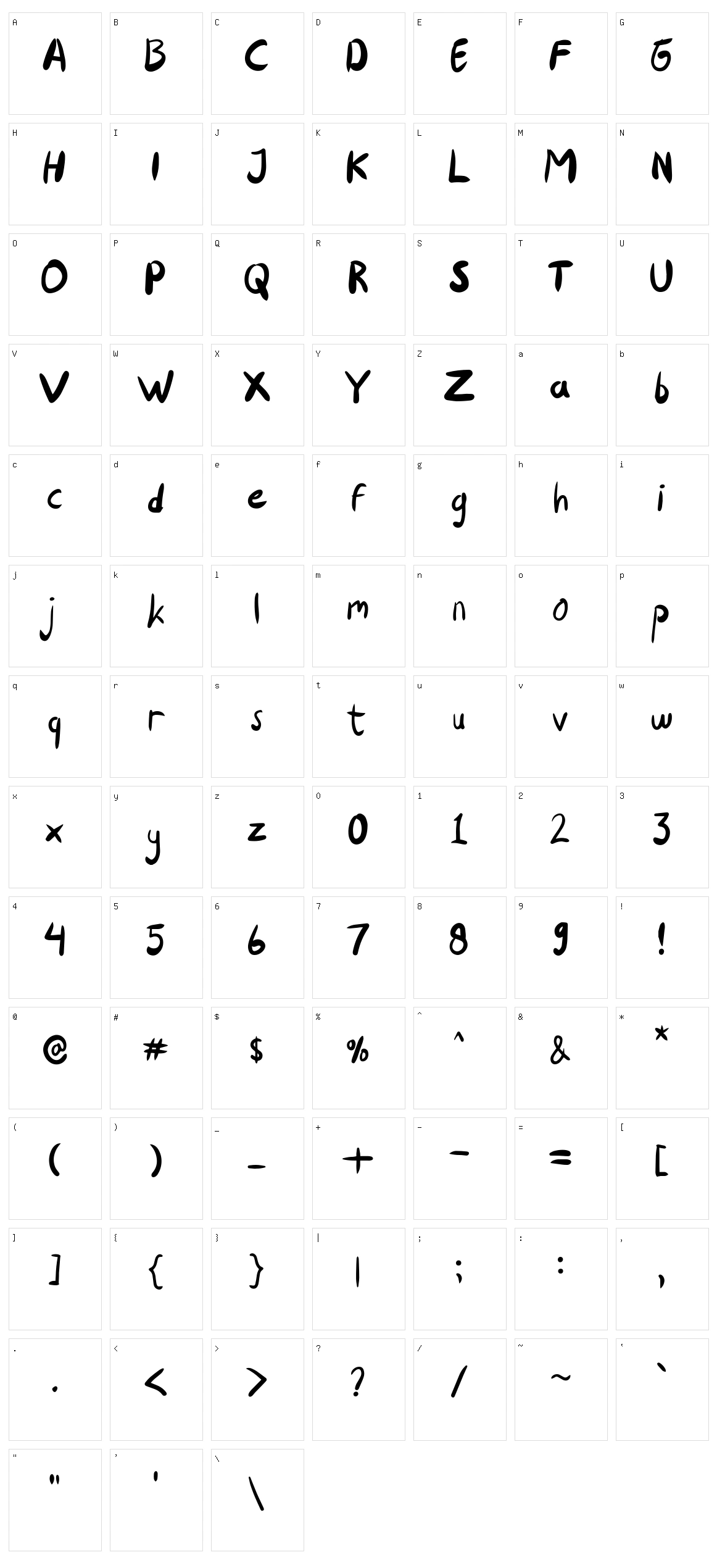
The free font Black Jack is carefully designed by Primitype, showcasing a thoughtful balance of creativity and usability and falls under the Script font style. When you download the ZIP file, it contains only 25.3 KB of font files, making it lightweight and quick to download. Please review the license details below to understand permitted usage and distribution rights. If license information is not available, we recommend using this font for personal projects only or contacting the author directly for commercial usage permissions.